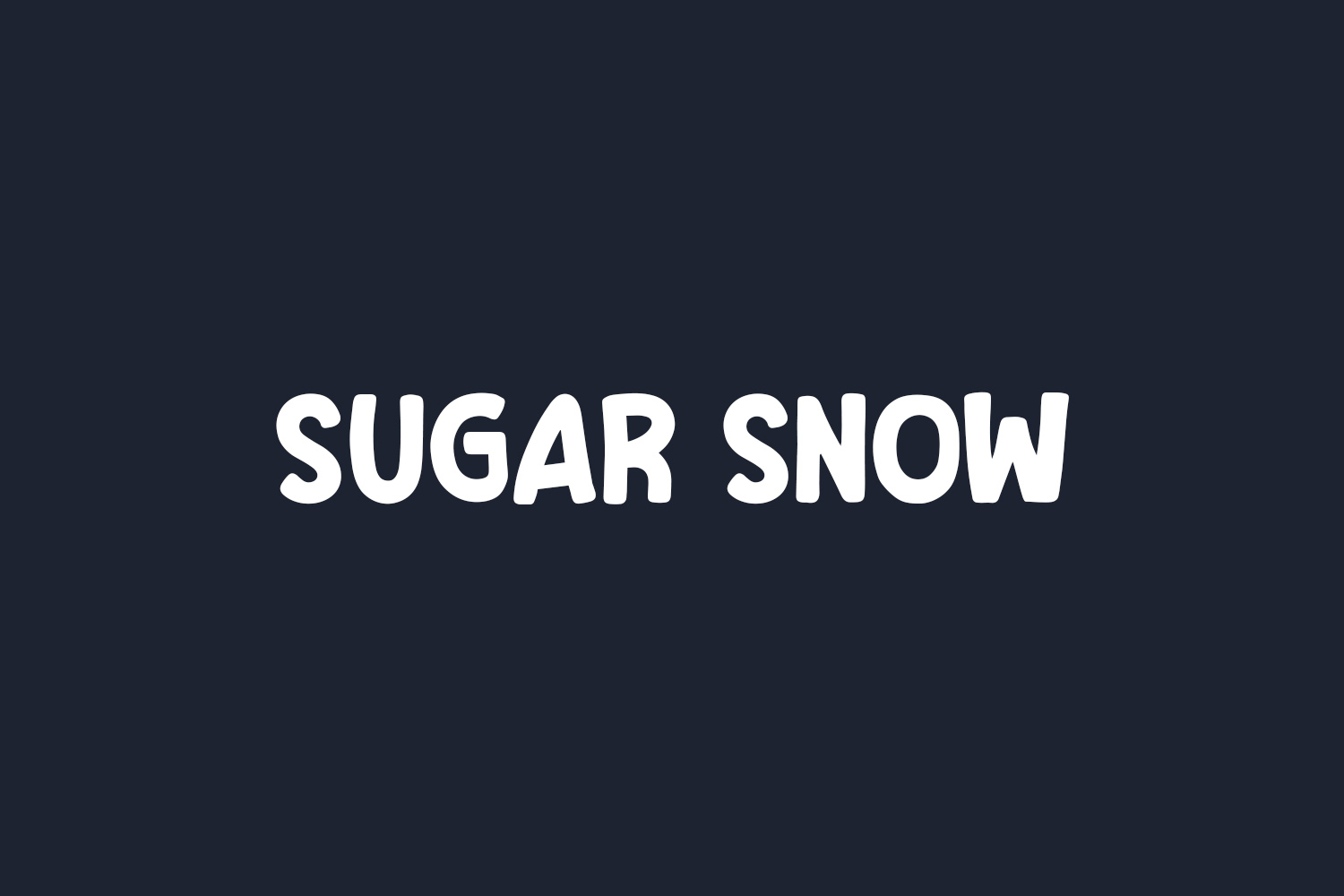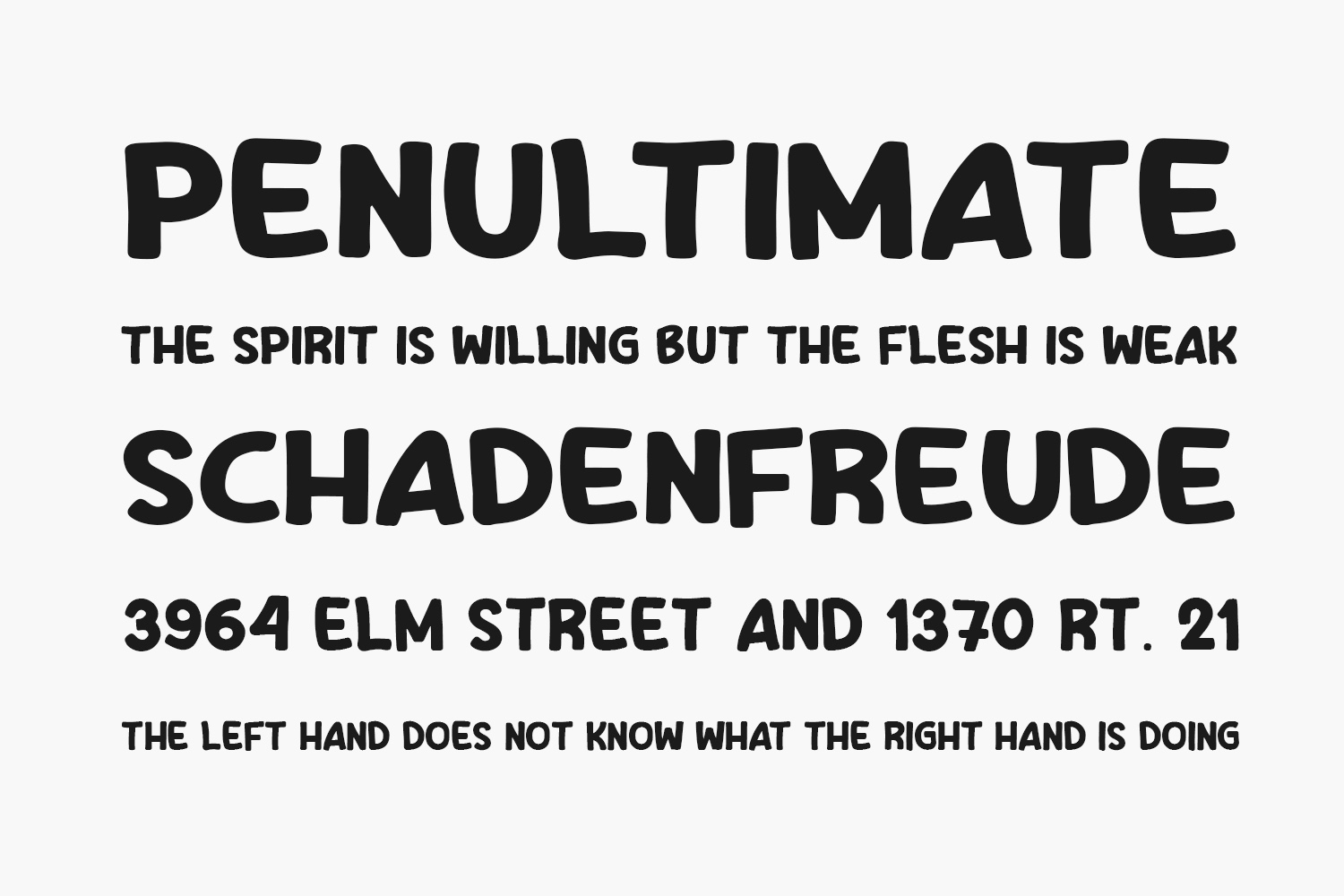
Sugar Snow Free Font is a modern and fancy display font. It has a friendly and rustic feel, making it well-suited for use in farm-to-table or organic-themed projects. It is also great for creating greeting cards, invitations, and other projects that require a more informal or casual style. Sugar Snow Free Font is available in regular weight and includes lowercase letters, as well as numerals and punctuation. Whether you’re looking to add a touch of whimsy to your designs or simply want a font that stands out from the rest, Sugar Snow Free Font is a great choice.